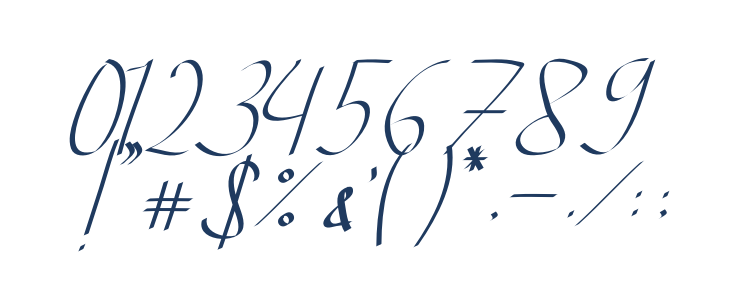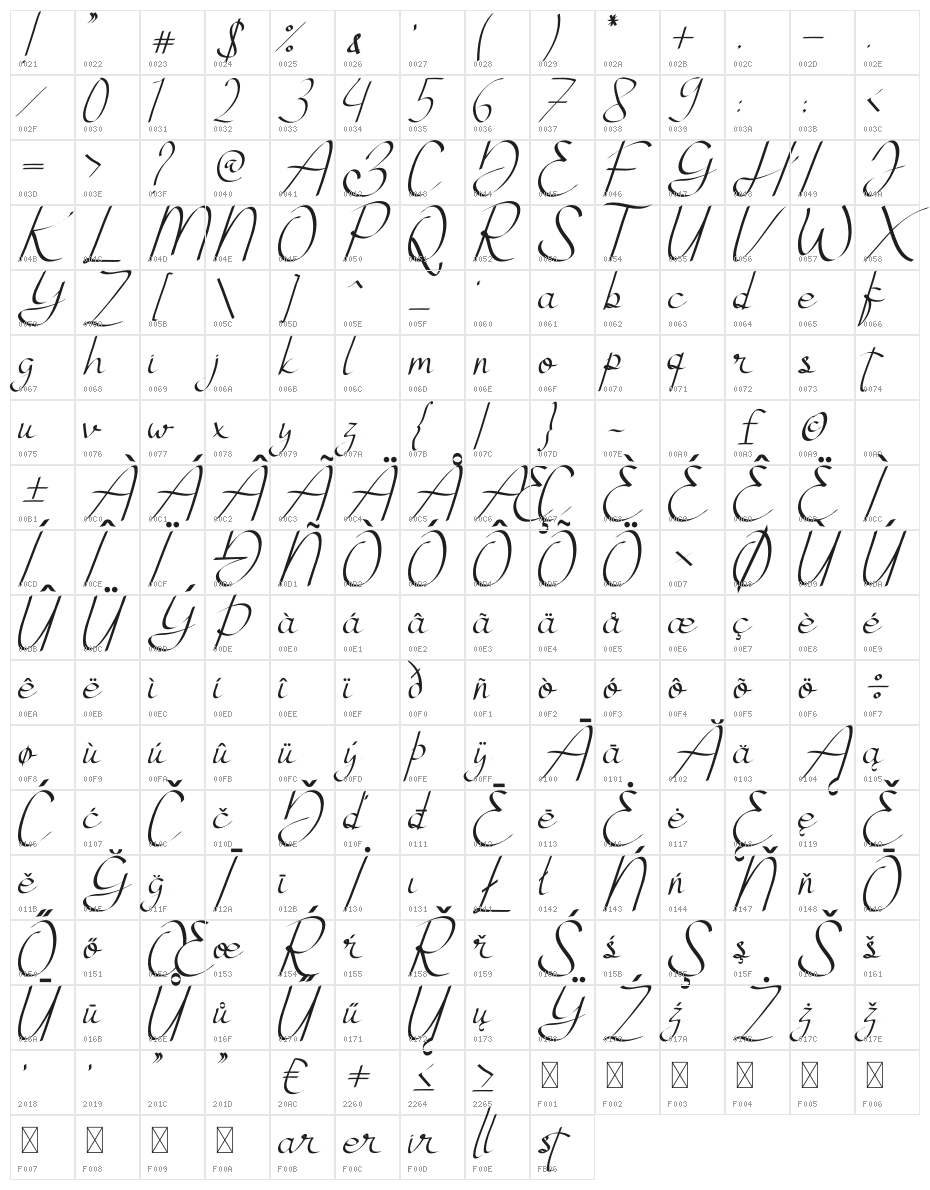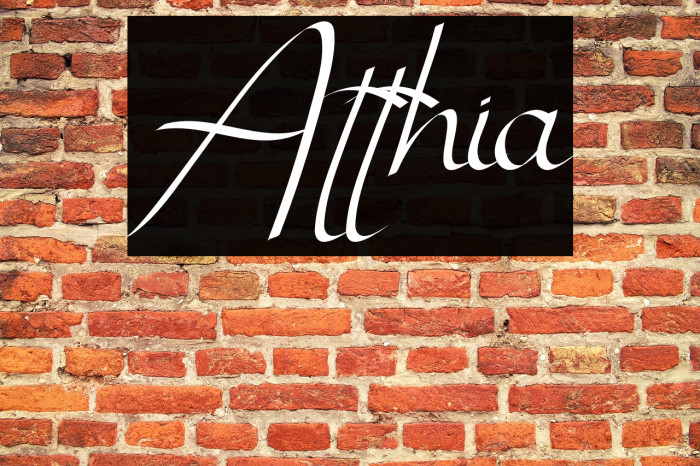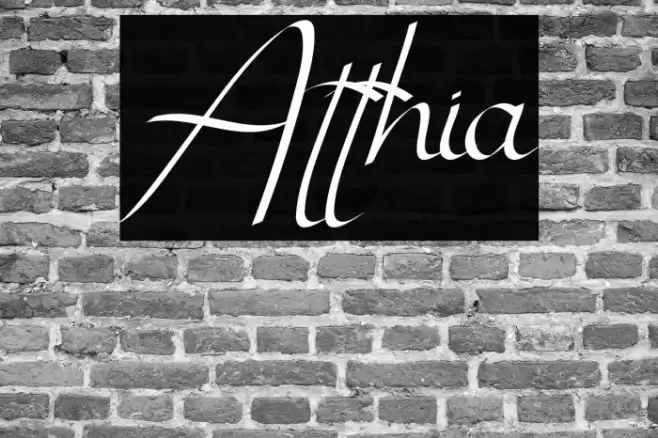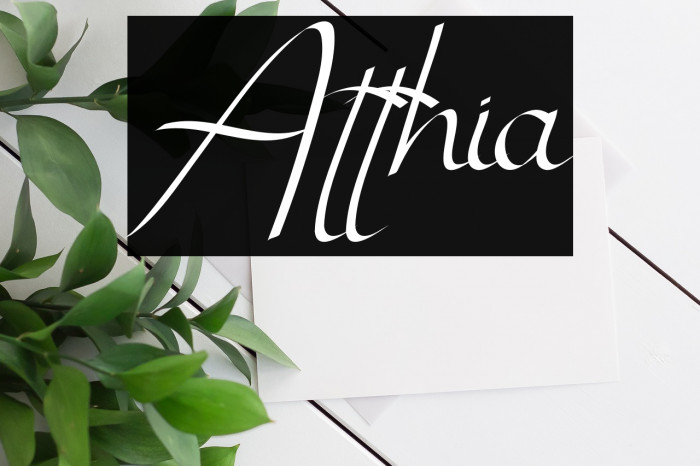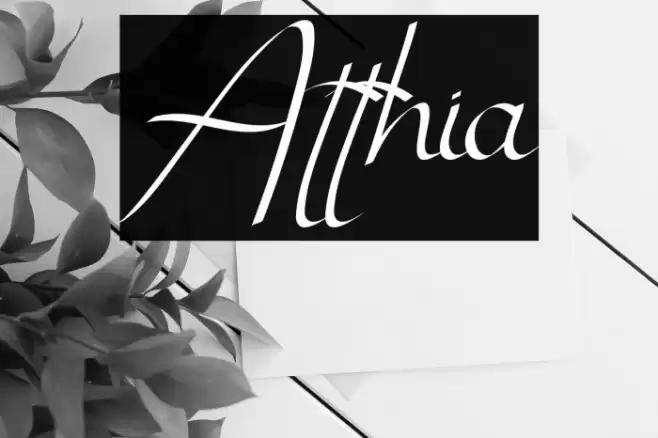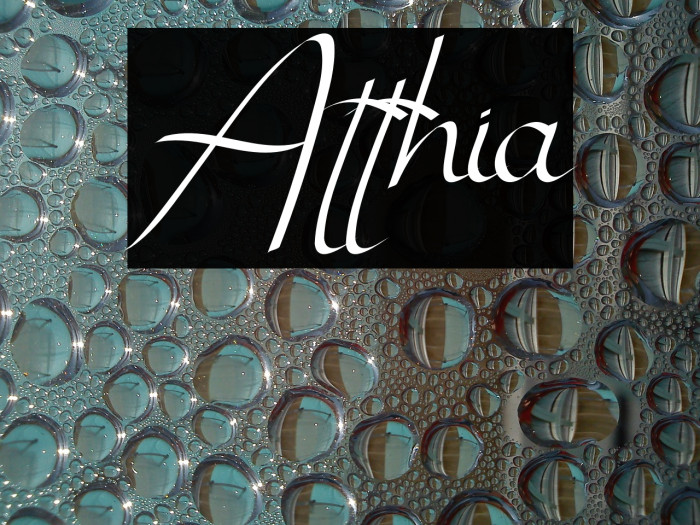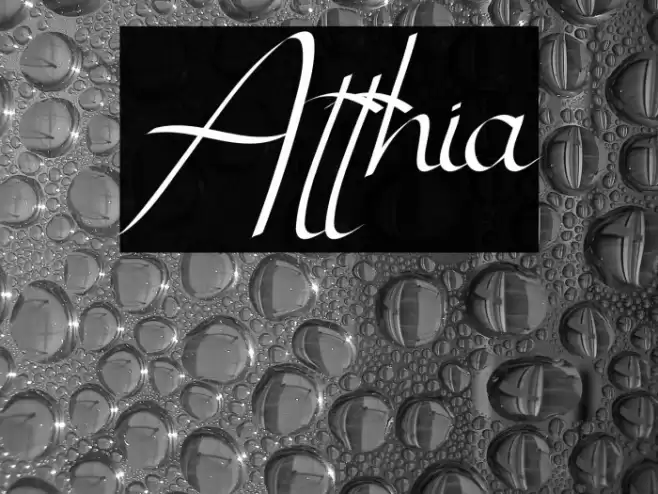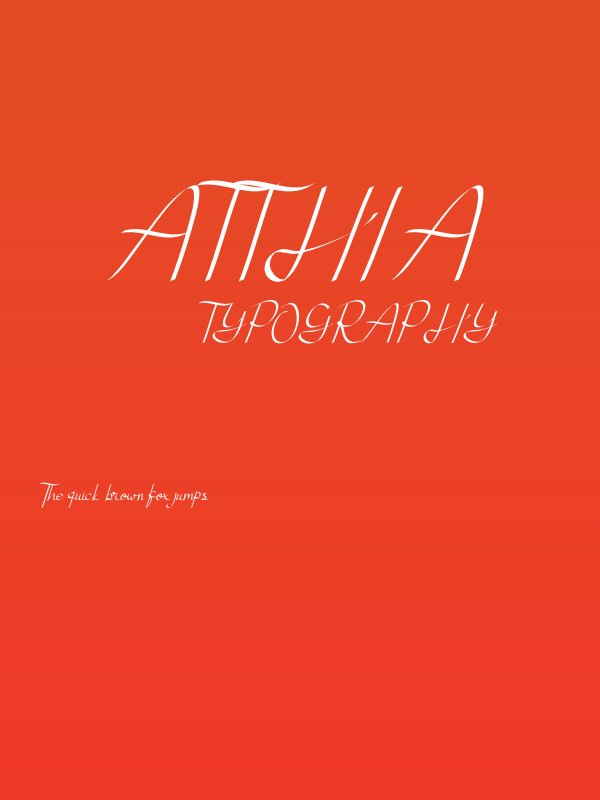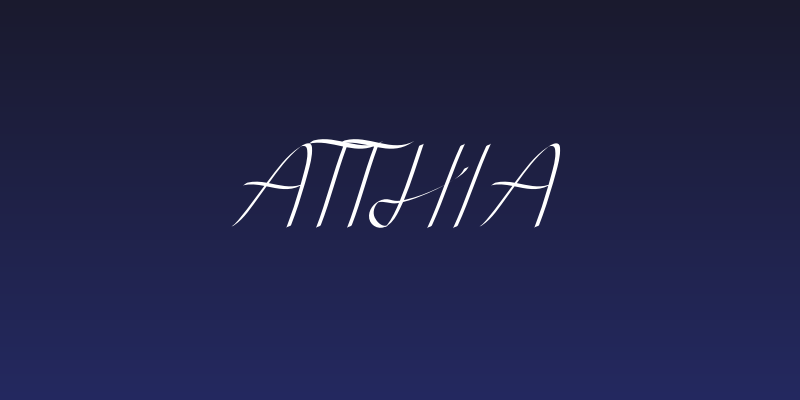
Atthia Font
Atthia Description
This elegant script font features a fluid and dynamic style, characterized by its sweeping curves and graceful lines. The uppercase letters are tall and slender, with a slight slant that adds a sense of motion. Lowercase letters maintain a consistent flow, with some characters featuring distinctive loops and flourishes. The numerals are stylishly elongated, complementing the overall aesthetic. Special characters are thoughtfully designed to match the font's sophisticated appearance. This font exudes a sense of elegance and refinement, making it suitable for a variety of creative applications.